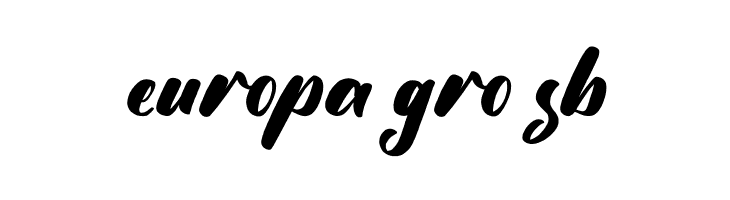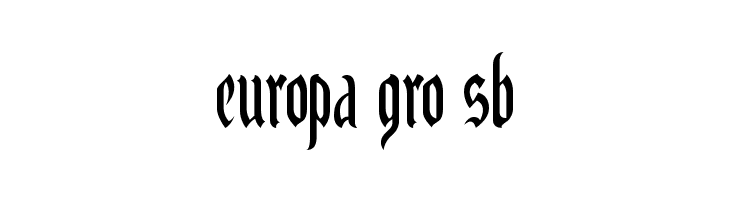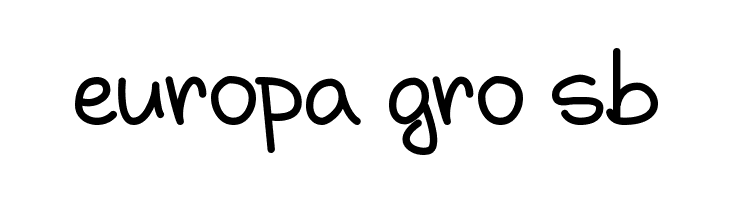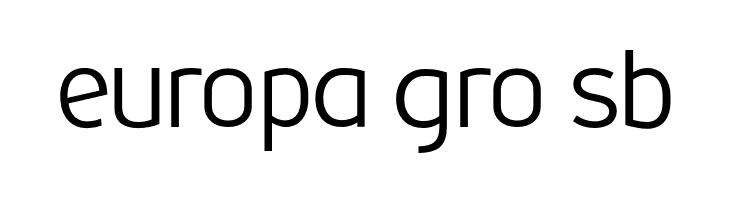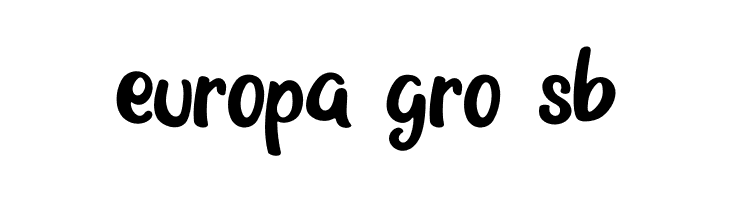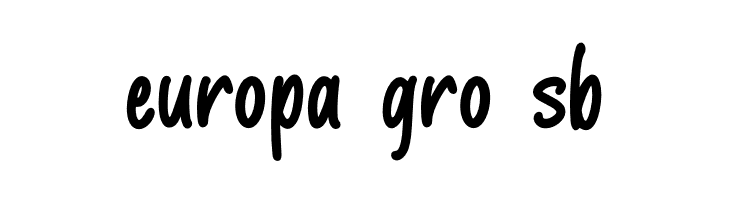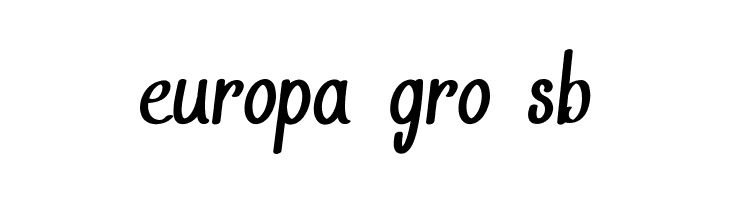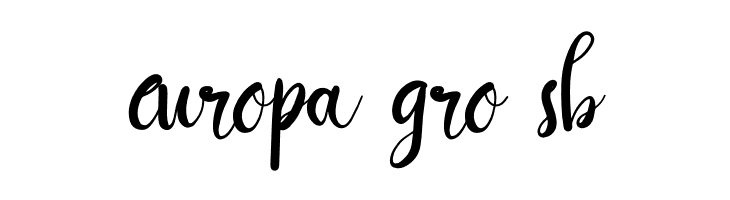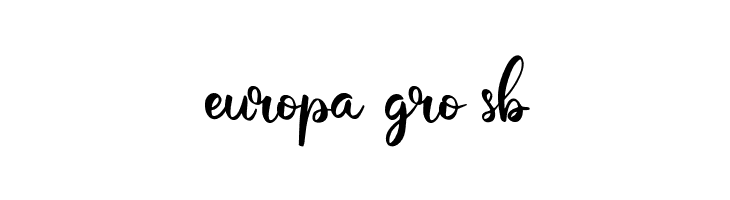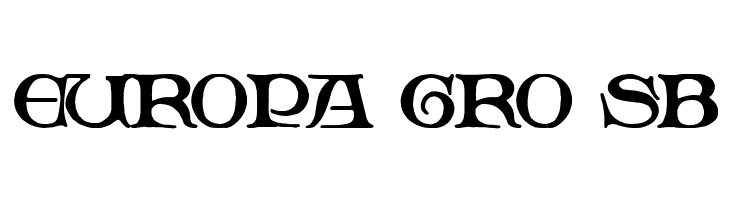
A bold, angular Gothic-inspired font with a modern twist.
A bold, intricate Gothic-style font with modern flair and dramatic curves.
A bold, brush-style font with dynamic, hand-painted strokes.
A classic serif font with elegant, pronounced serifs and a timeless appearance.
A classic serif font with bold uppercase and harmonious lowercase letters.
A dynamic and elegant script font with flowing, cursive letterforms.
A playful, bubble-like font with bold outlines and whimsical character shapes.
A bold, playful font with heart-shaped cutouts in each character.
A bold, decorative script font with flowing, interconnected letters.
A playful and artistic script font with bold, expressive characters.
A bold, flowing script font with elegant, interconnected strokes and high contrast.
A modern serif font with clean lines and balanced readability.
A playful, handwritten font with smooth curves and a casual style.
A classic serif font with elegant proportions and moderate contrast, ideal for traditional and refined designs.
A bold, brush-style font with a dynamic and artistic appearance.
A lively and expressive script font with elegant swashes and interconnected letters.
A lively and expressive script font with elegant curves and dynamic flourishes.
A bold, rounded font with a strong and approachable style.
A bold, rounded font with a modern and cohesive design.
A bold, italic font with dynamic slant and strong presence.
A tall, narrow font with a modern, geometric design and tight spacing.
A bold, playful font with exaggerated curves and a dynamic style.
A playful, bold, and hand-drawn style font with rounded, irregular characters.
A playful and flowing script font with smooth, cursive strokes.
A bold, playful handwritten font with rounded strokes and dynamic letterforms.
A classic Gothic font with intricate, angular letterforms and decorative flourishes.
A playful handwritten font with a casual, friendly style.
A modern, geometric sans-serif font with clean lines and uniform structure.
A graceful, cursive script font with elegant, flowing lines.
A playful, bold handwritten font with smooth, rounded edges.
A playful, handwritten font with smooth, rounded edges and a friendly appearance.
A bold, brush-style font with dynamic and expressive strokes.
A modern, geometric font with clean lines and subtle curves.